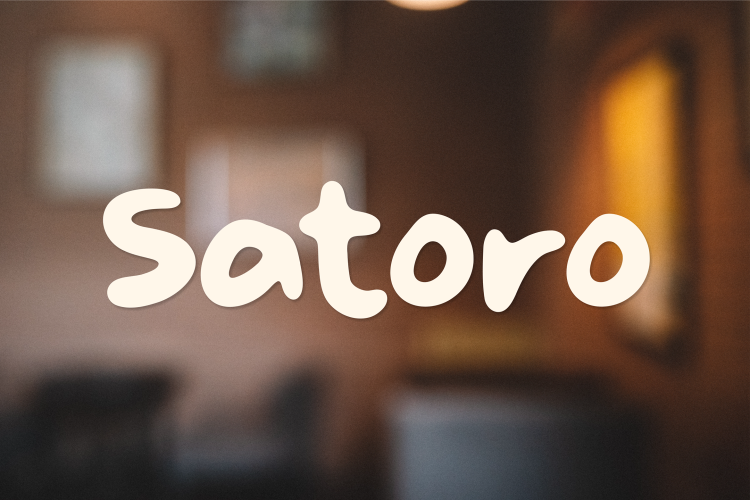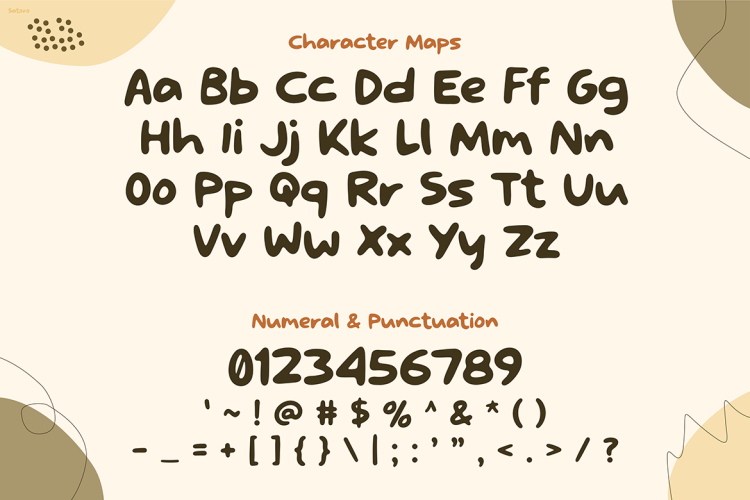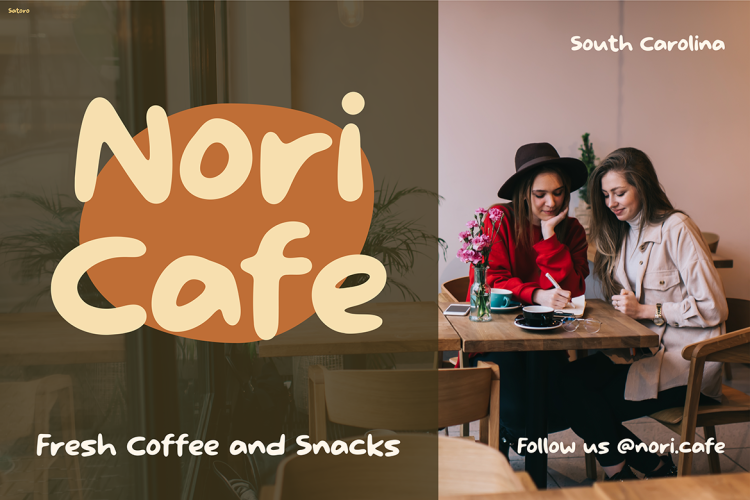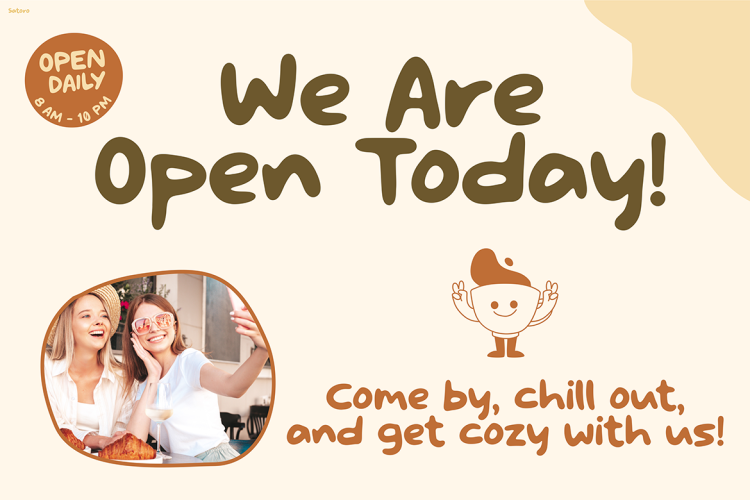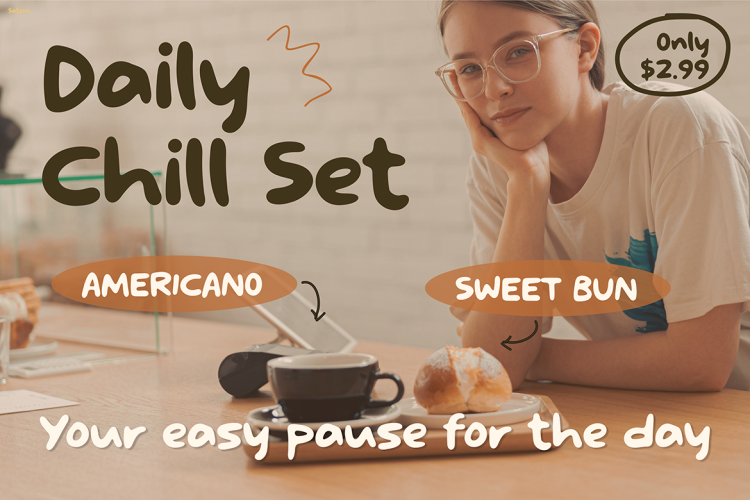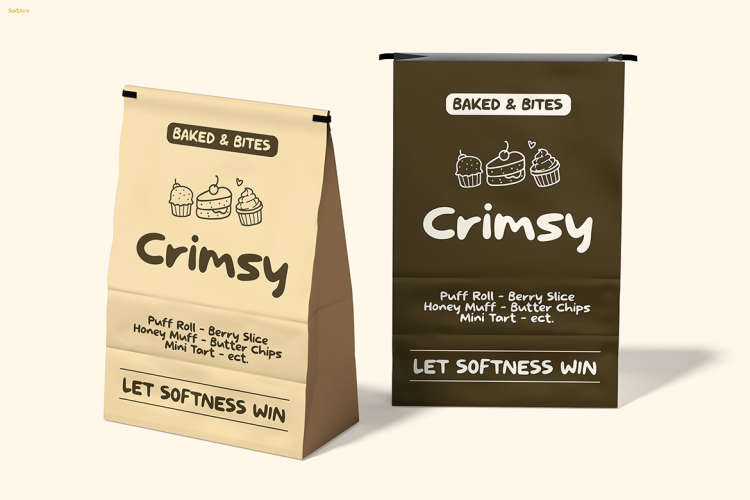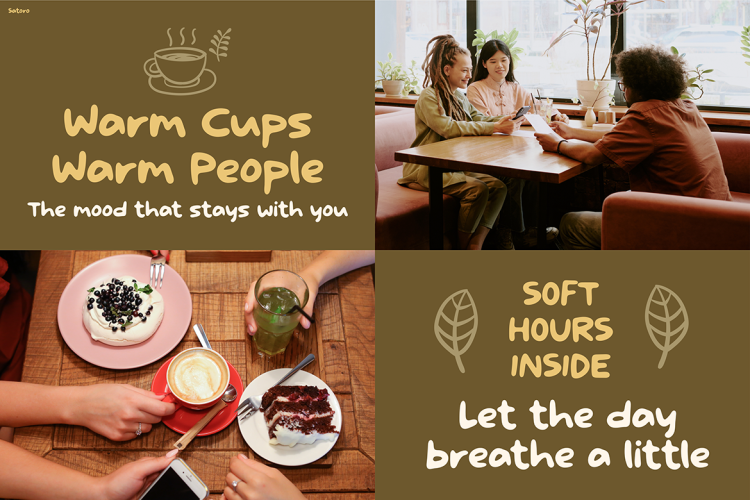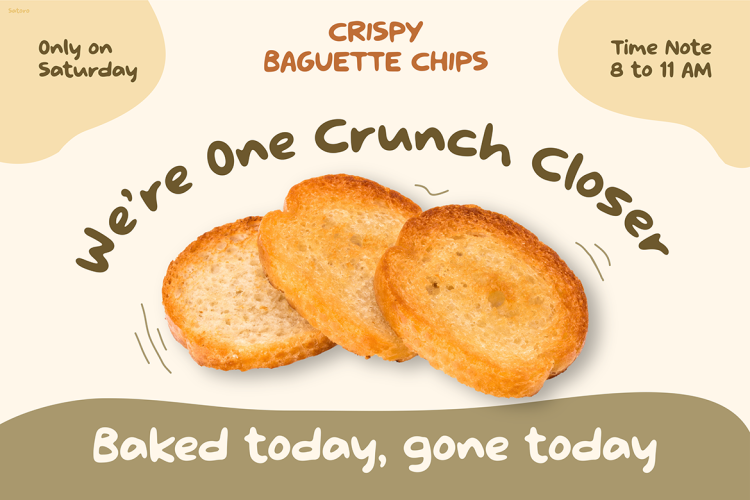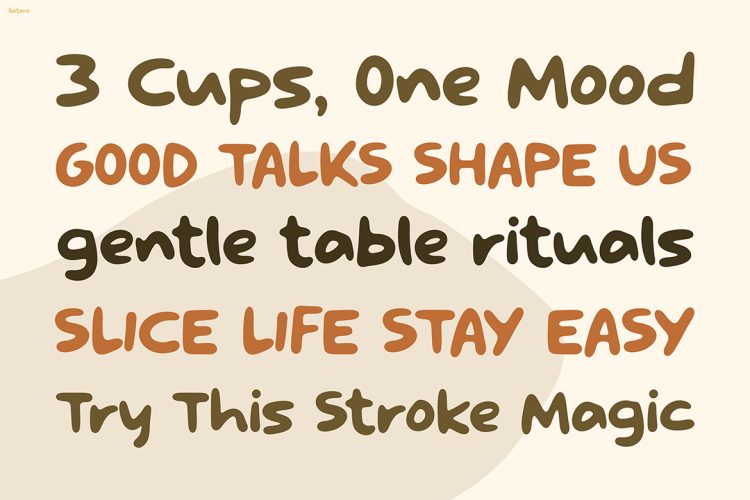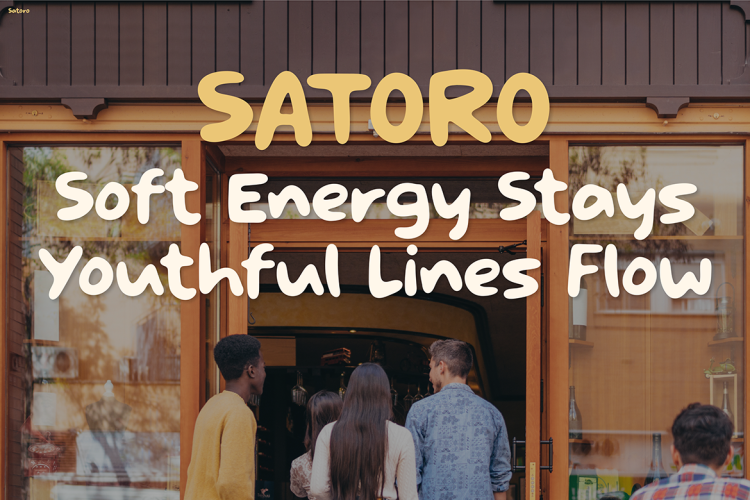
Instagram Font Satoro – Where Aesthetic Meets Warmth
Instagram Font Satoro introduces a warm, soft-flowing handwritten style that instantly brings comfort and approachability to any visual project. This font stands out because its strokes feel naturally youthfulโsmooth curves, rounded terminals, and gentle energy that looks friendly without losing clarity. The aesthetic blends a cafรฉ-style handwriting vibe with modern branding softness, making it perfect for visuals that want to feel inviting, casual, and emotionally warm.
The preview images highlight the fontโs charming personality: cozy cafรฉ menus, warm social quotes, soft product labels, and youthful lifestyle promotions. Every letter glides with balanced spacing, giving your designs a clean yet handcrafted look. Whether displayed in large titles or shorter captions, Satoro remains easy to read while maintaining its playful, hugging-style visual identity.
Its versatility shines in both light and dark scenes, as shown in the previews. From โDaily Chill Setโ to โWarm Cups Warm People,โ the font adapts beautifullyโmaking ordinary layouts feel more intimate, friendly, and full of life. If youโre aiming for designs that feel local, human, and emotionally engaging, Satoro brings the exact softness you need.
Who Is It Perfect For?
Creators who want their designs to feel warm, familiar, and conversational will love Satoro. It is especially ideal for:
Cafรฉ owners promoting menus, promos, and cozy lifestyle branding
Small businesses wanting friendly packaging or product labels
Instagram content creators looking for soft handwritten captions and title cards
Designers crafting warm posters, ads, and event promos
Creatives in food, beverage, lifestyle, and photography niches
Entrepreneurs who want branding that feels gentle, youthful, and easy to trust
Instagram Font Satoro also works perfectly for moodboards, Canva templates, marketing visuals, thank-you cards, bakery branding, coffee shop menus, and social storytelling content. If your audience loves comfort, warmth, and a personal touchโthis font will feel like home.